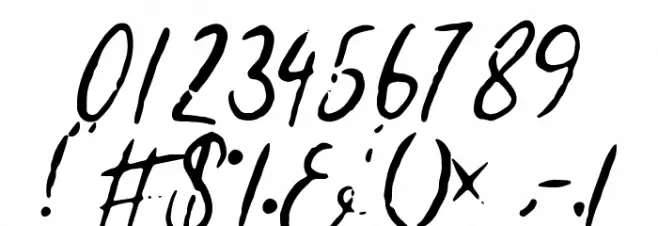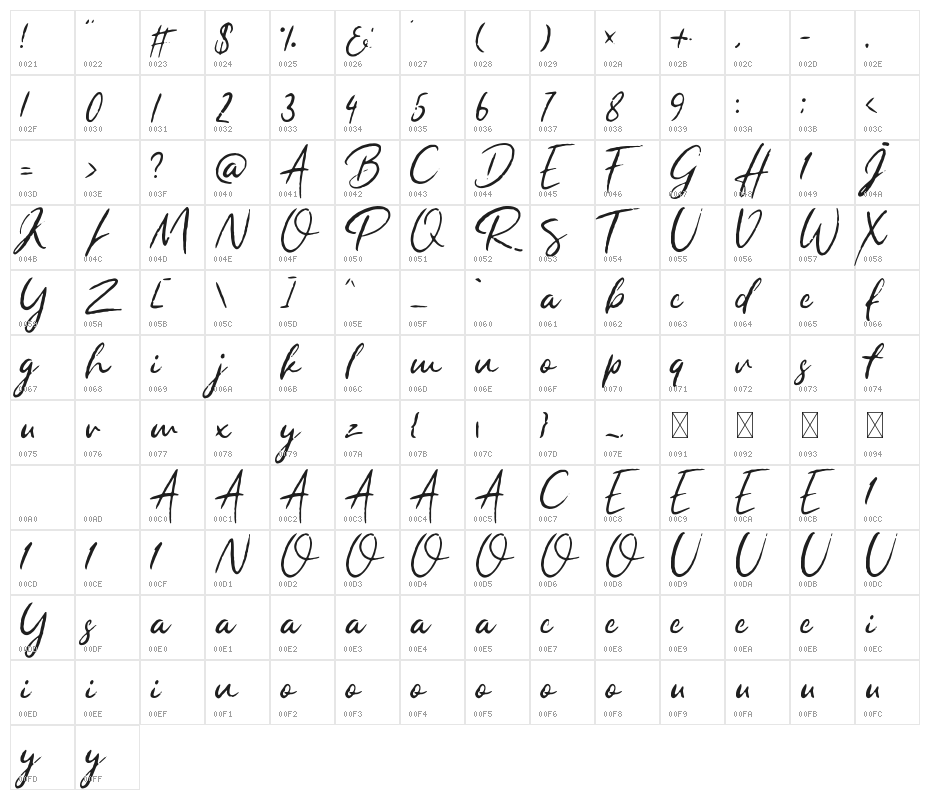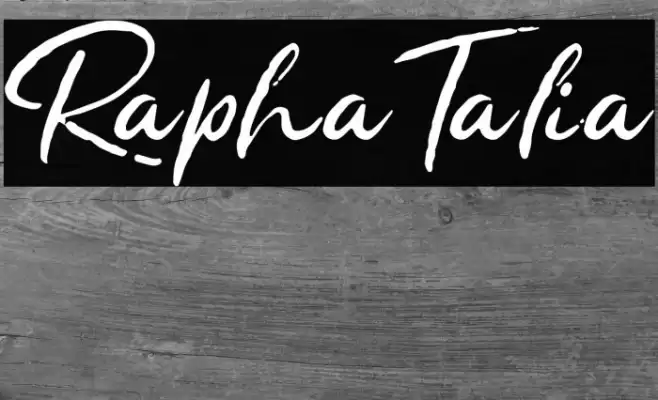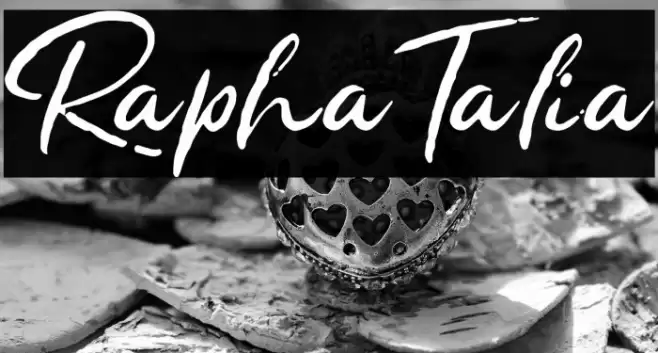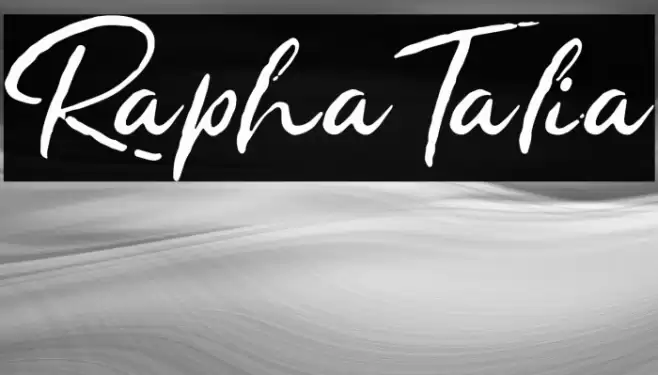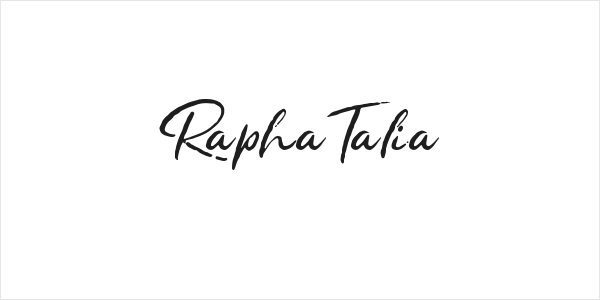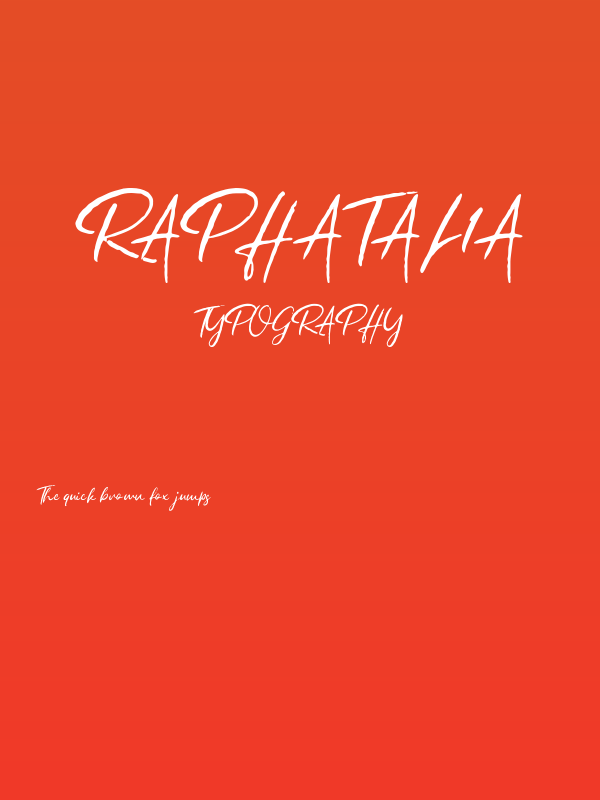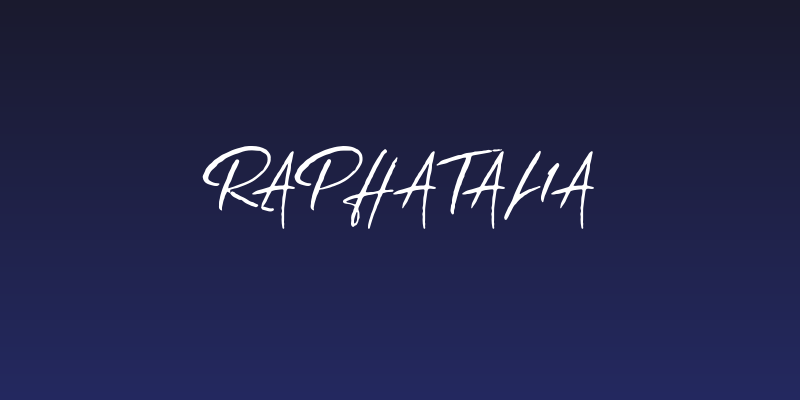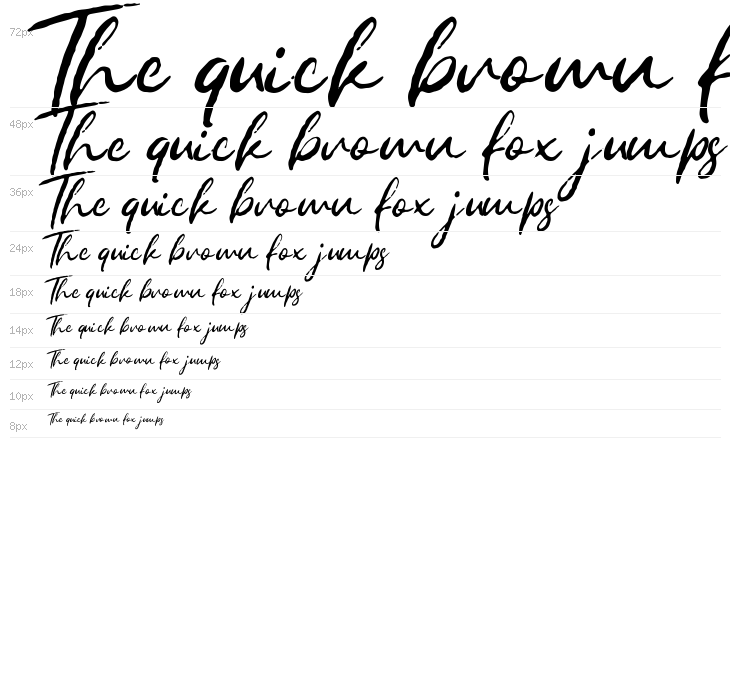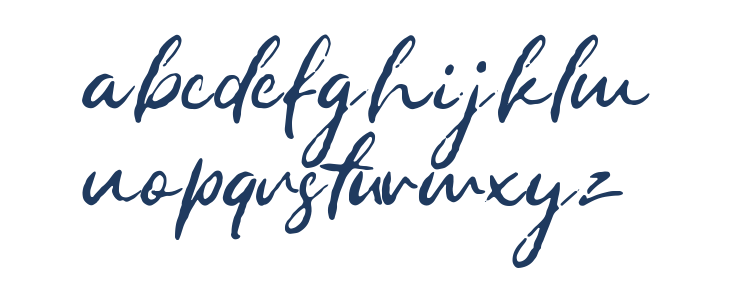
Rapha Talia Font
Rapha Talia Description
This font embodies a dynamic and expressive handwritten style, characterized by its fluid strokes and organic flow. The uppercase letters exhibit a bold and confident presence, with each character maintaining a unique flair that adds to the overall aesthetic. The lowercase letters continue this theme, offering a harmonious blend of curves and angles that enhance readability while preserving the artistic essence. Numbers and special characters are crafted with the same attention to detail, ensuring consistency across all elements. The font's brush-like texture and varying stroke thickness contribute to its lively and energetic appearance, making it ideal for projects that require a personal touch.